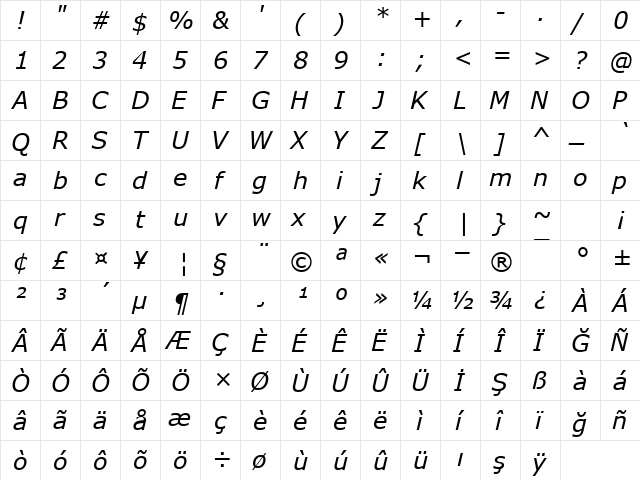
Verdana Digiscream Italic
Design Context for Verdana Digiscream Typeface
Verdana Digiscream takes a measured approach to typography — its balanced proportions and neutral character make it a reliable workhorse for both digital and print work. The slanted form adds forward momentum and visual energy.
Pro Tip: Use Verdana Digiscream for emphasis, pull quotes, and subheadings where its slanted energy can add rhythm to the layout.